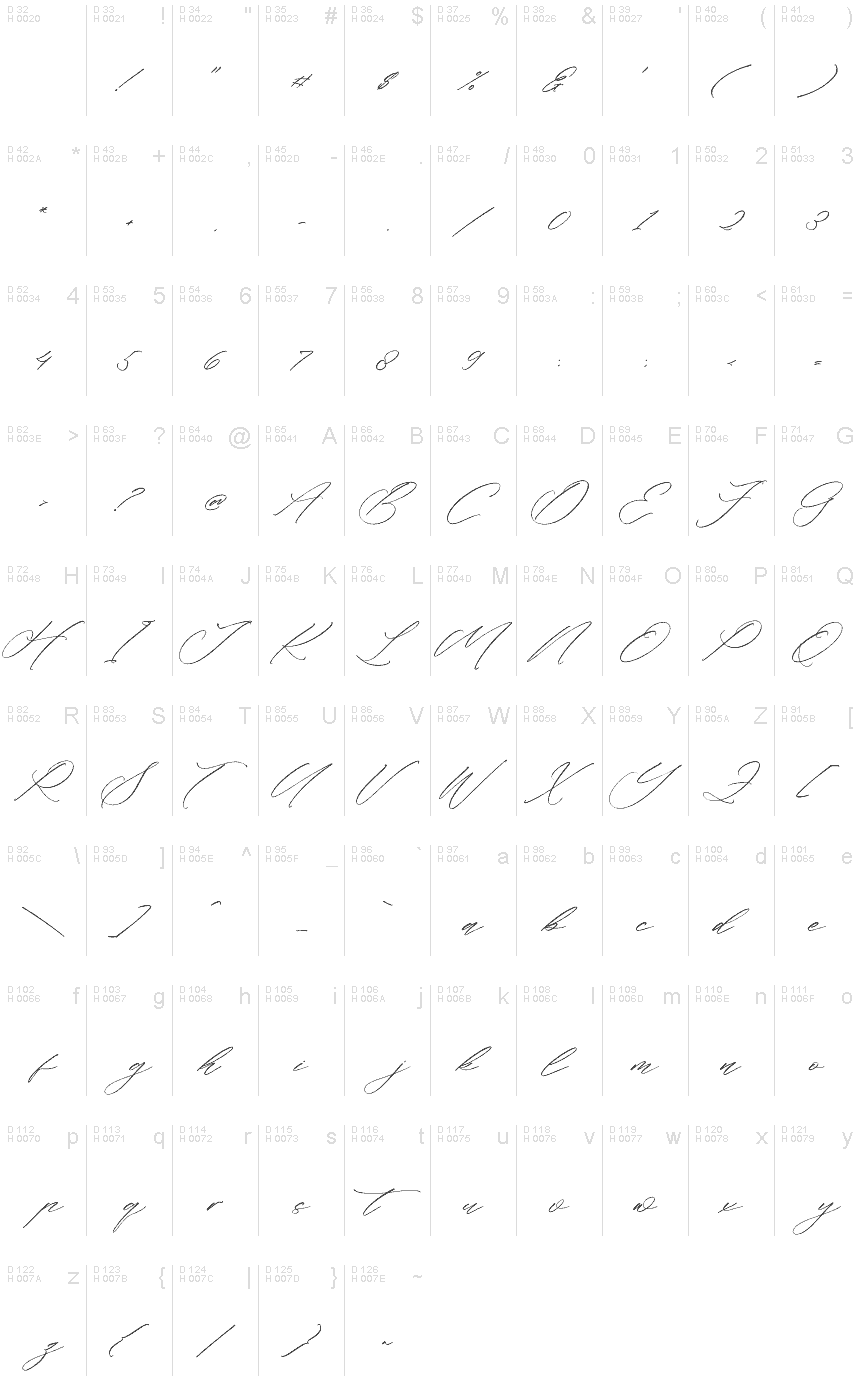
Flumtips Noulevia
Flumtips Noulevia font, designed by Storytype Studio, is a light handwritten font with an artistic flair and handcrafted feel. It combines expressive flowing characters with an elegant sophisticated style for a timeless visual feel. The simple refined lines enable this font to be easily decipherable without losing its characteristic aesthetic.
This free handwritten font is ideal for personal branding, packaging design, product labels, website headers, advertising posters, social media posts typography, wedding invitation cards designs among other print and digital applications where distinct typefaces are an advantage.